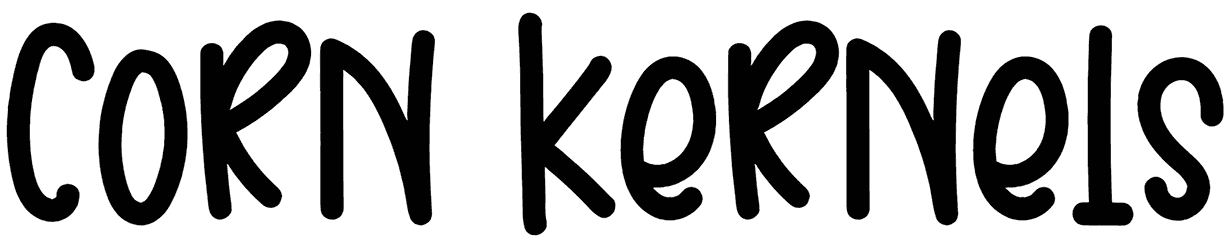
Corn Kernels Font
The Corn Kernels is an eye-catching curly font that supports various letters and symbols. The shape of this font’s characters has a unique design and will remain in the viewer’s mind.
The Corn Kernel is also a cartoon font that you can use in different situations and for various purposes. As you see the circular form of letters, the Corn Kernels font feels smooth and friendly. Therefore, the viewer is happily encouraged to read the content.